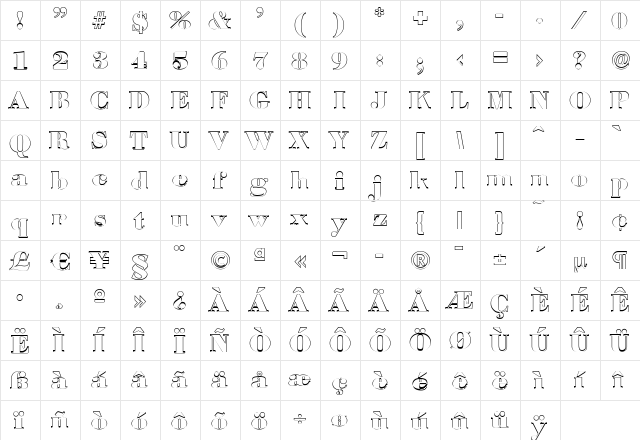
JosephBeckerOutline-Black Regular Font Preview
JosephBeckerOutline-Black Regular
Design Context for JosephBeckerOutline-Black Typeface
JosephBeckerOutline-Black brings ornamental detail and strong personality to headlines and identities, where visual impact matters more than quiet functionality.
Font Pairing: Pair with a clean neutral sans-serif for body copy to let JosephBeckerOutline-Black's character lead without overwhelming the composition.
Pro Tip: Treat JosephBeckerOutline-Black as the centrepiece of your typographic hierarchy. One strong heading set in a decorative face can carry an entire layout.